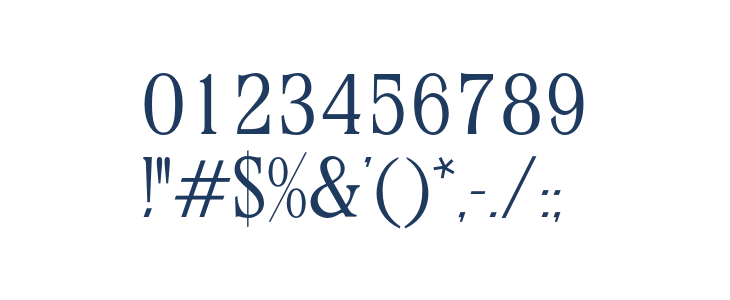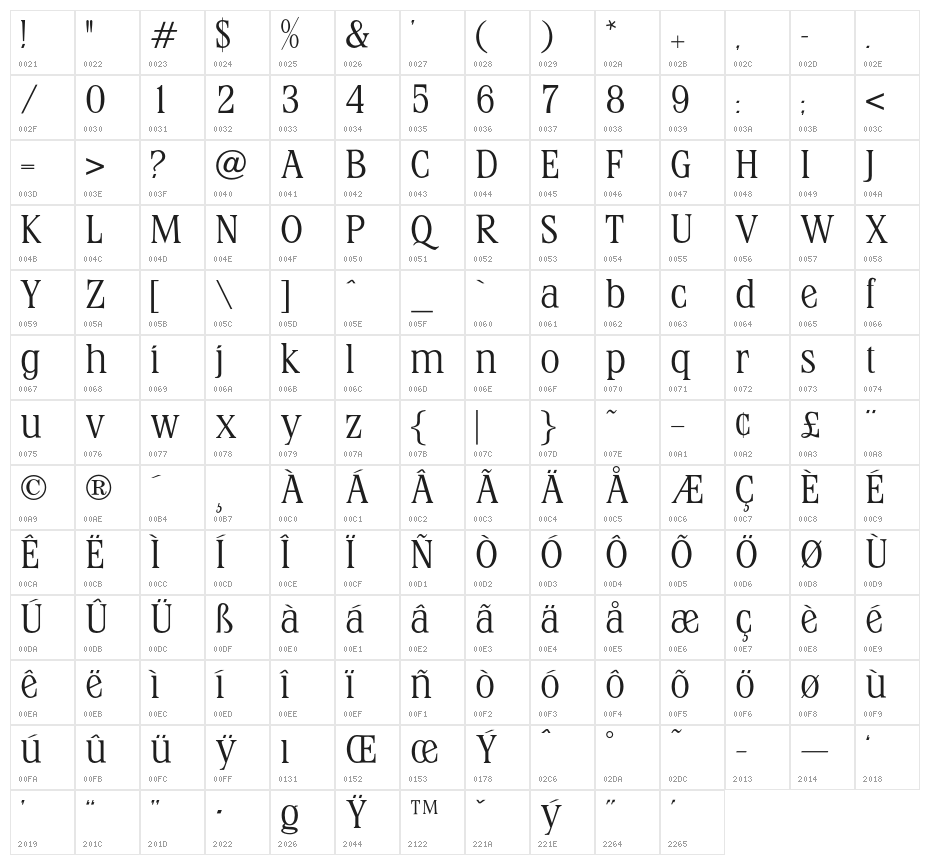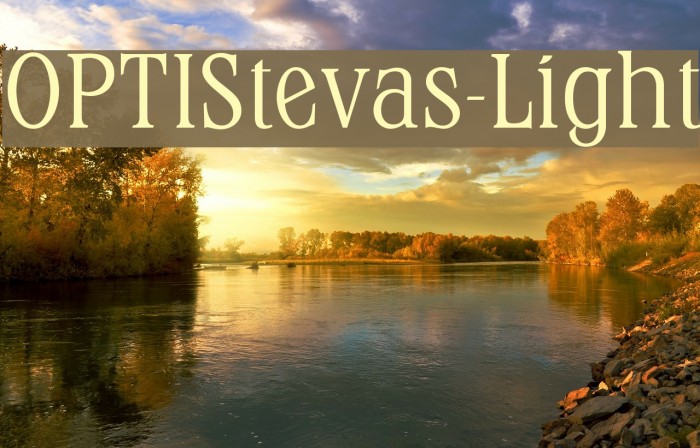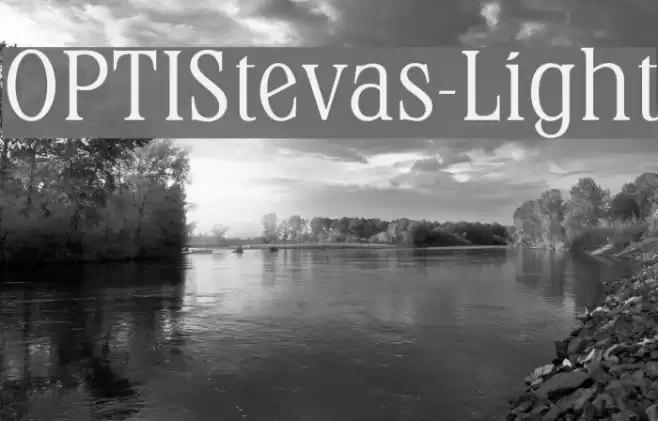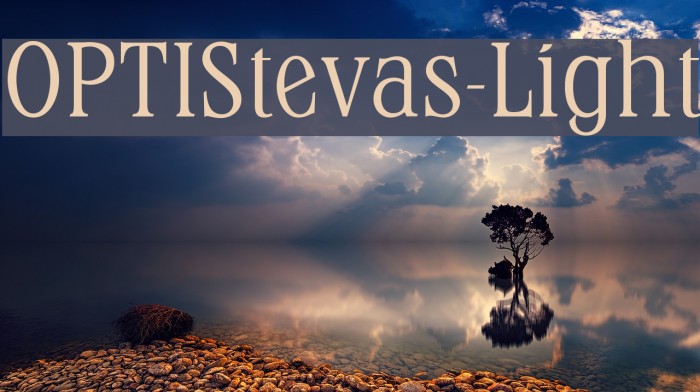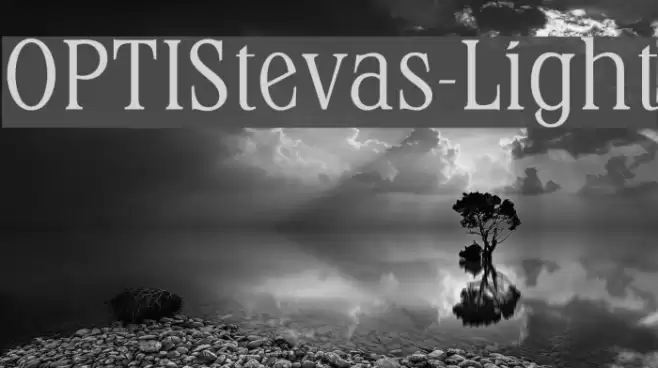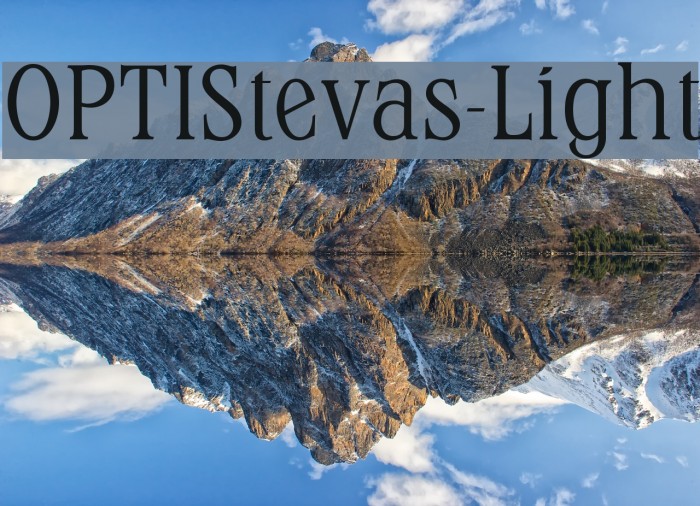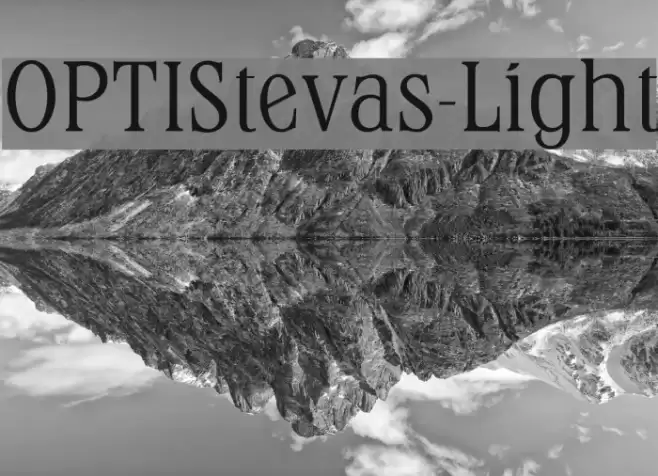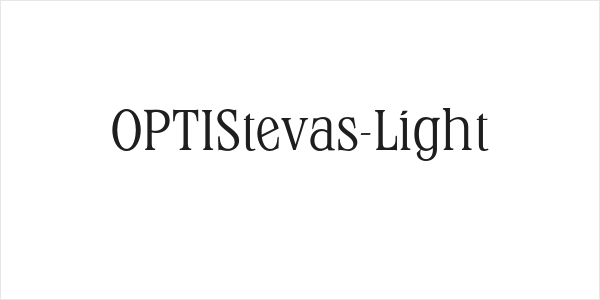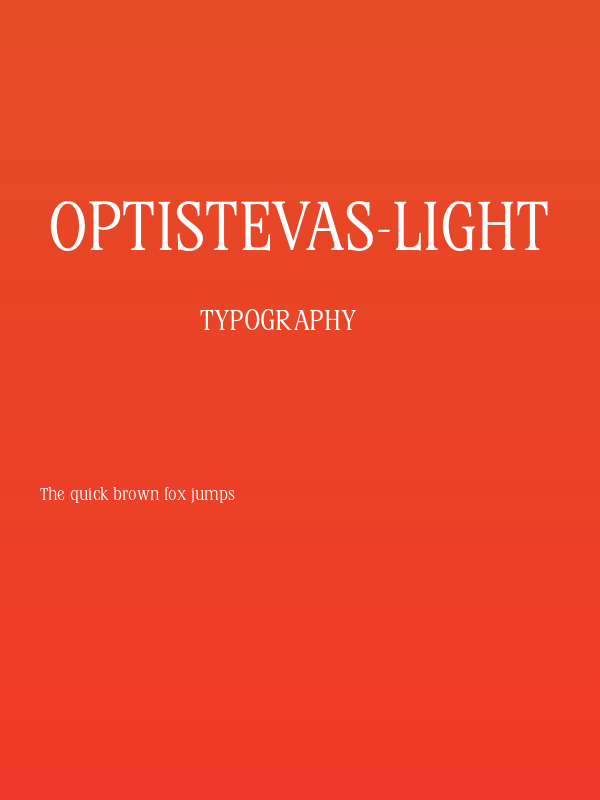
OPTIStevas-Light Font
OPTIStevas-Light Description
This font features a classic serif design with elegant and refined strokes. The uppercase letters are tall and stately, while the lowercase letters maintain a balanced and harmonious appearance. The numerals are clear and distinct, making them easy to read. Special characters are well-integrated, enhancing the font's versatility. The overall design is sophisticated, suitable for formal and professional applications. The font's light weight adds a touch of delicacy, making it ideal for projects that require a subtle yet impactful presence.